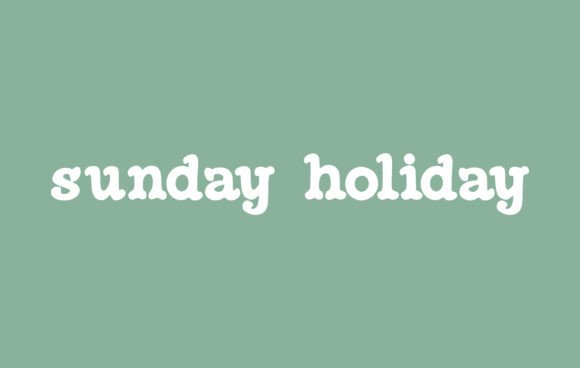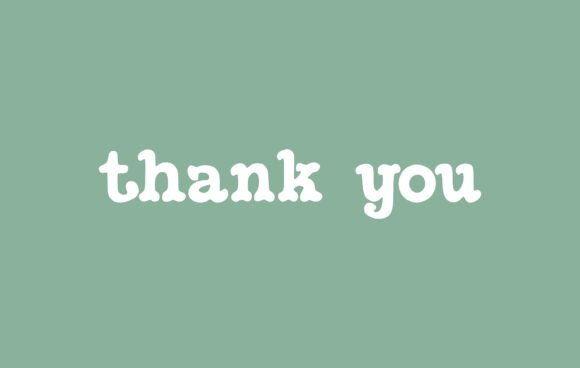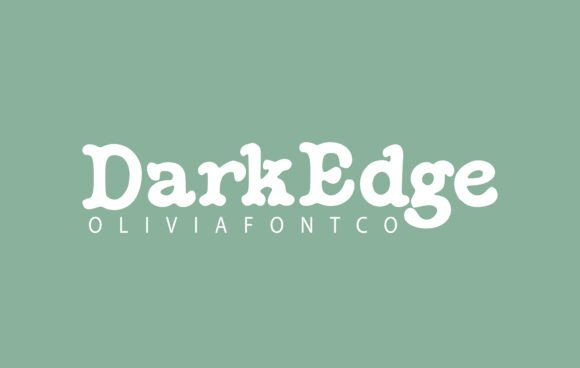
Unleash Your Creativity with DarkEdge Font: A Bold Serif for the Modern Designer
In the world of typography, fonts are more than just a means to convey a message; they’re an expression of style, personality, and creativity. For designers and crafters looking to make a statement, DarkEdge font emerges as a game-changer. This bold serif font combines unconventional letterforms with quirky accents, striking a perfect balance between modern and vintage aesthetics. Whether you’re working on creative branding, designing logos, or crafting bold editorial headlines, DarkEdge is poised to elevate your projects to new heights.
The Essence of DarkEdge Font
DarkEdge is not just another font; it’s an experience. Its bold serifs and unique letterforms are designed to capture attention and inspire imagination. The quirky accents add a touch of whimsy, making it perfect for projects that demand a bit of personality. This font is a versatile tool that can be used across various platforms, from digital media to print, offering endless possibilities for creative expression.
Key Features of DarkEdge Font
- Bold Serif Design: The font’s bold serifs make it highly legible, even at smaller sizes, ensuring your message is conveyed effectively.
- Unconventional Letterforms: Each letter is crafted with a unique flair, giving your text a distinctive look that stands out from the crowd.
- Quirky Accents: The addition of quirky accents adds a playful touch, allowing for more creative freedom in your designs.
- Modern-Meets-Vintage Edge: DarkEdge strikes a perfect balance between modern sleekness and vintage charm, making it suitable for a wide range of design projects.
Applications of DarkEdge Font
DarkEdge’s versatility makes it an excellent choice for various applications:
- Creative Branding: Use DarkEdge to create memorable brand names and taglines that leave a lasting impression on your audience.
- Logos: The font’s unique characteristics make it ideal for logos that need to stand out in a crowded marketplace.
- Bold Editorial Headlines: Add a touch of drama and flair to your editorial content with headlines that demand attention.
- Digital and Print Media: From websites and social media posts to brochures and posters, DarkEdge can be used across various mediums.
Tips for Using DarkEdge Font Effectively
To maximize the impact of DarkEdge, consider the following tips:
- Contrast is Key: Use DarkEdge in combination with simpler fonts to create visual contrast and hierarchy in your designs.
- Experiment with Colors: Don’t limit yourself to black and white. Experiment with colors to find the perfect match that enhances your design.
- Play with Sizes: DarkEdge’s bold design works well in various sizes. Play with different sizes to add depth and emphasis to your text.
- Maintain Readability: While DarkEdge is designed to make a statement, ensure that your text remains readable, especially in longer pieces of content.
DarkEdge font is a powerful tool for designers and crafters looking to infuse their projects with personality and style. Its bold serifs, unconventional letterforms, and quirky accents offer a fresh take on traditional typography, making it perfect for creative branding, logos, and editorial headlines. By incorporating DarkEdge into your design toolkit, you’ll be well-equipped to create visually stunning and impactful projects that leave a lasting impression.
Embrace the unique charm of DarkEdge and unlock a world of creative possibilities. Whether you’re a seasoned designer or a crafting enthusiast, DarkEdge is ready to help you take your designs to the next level.